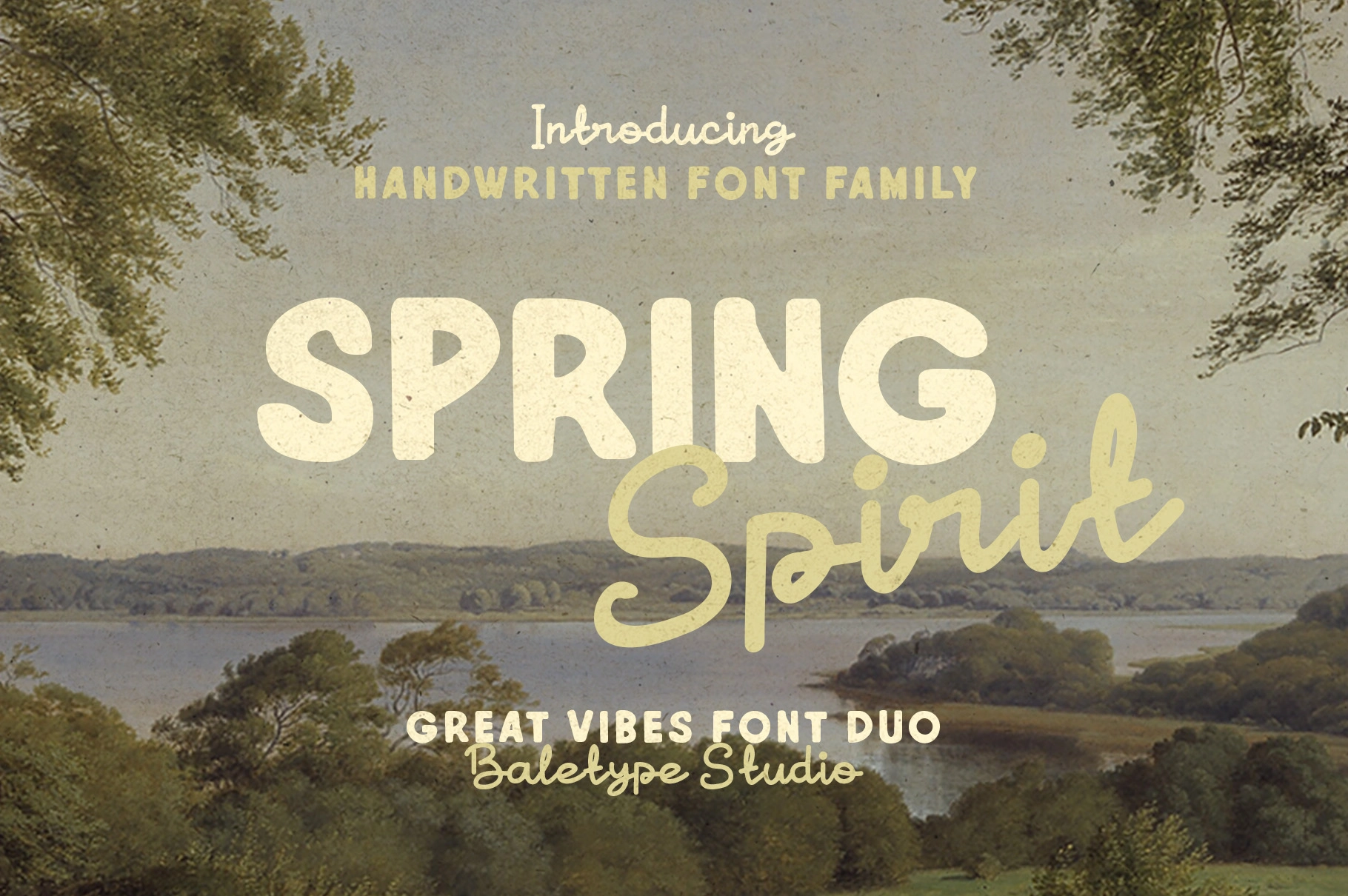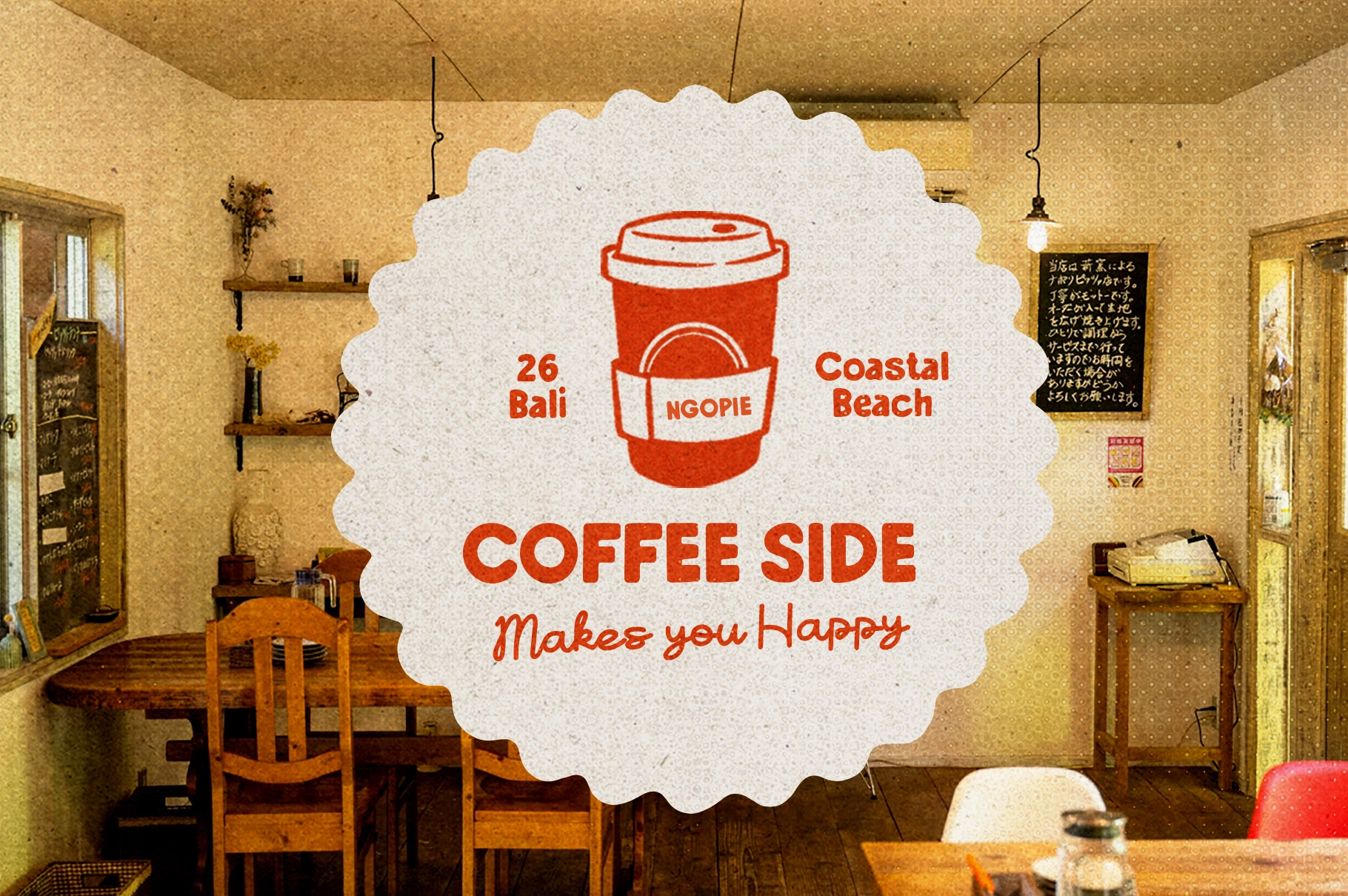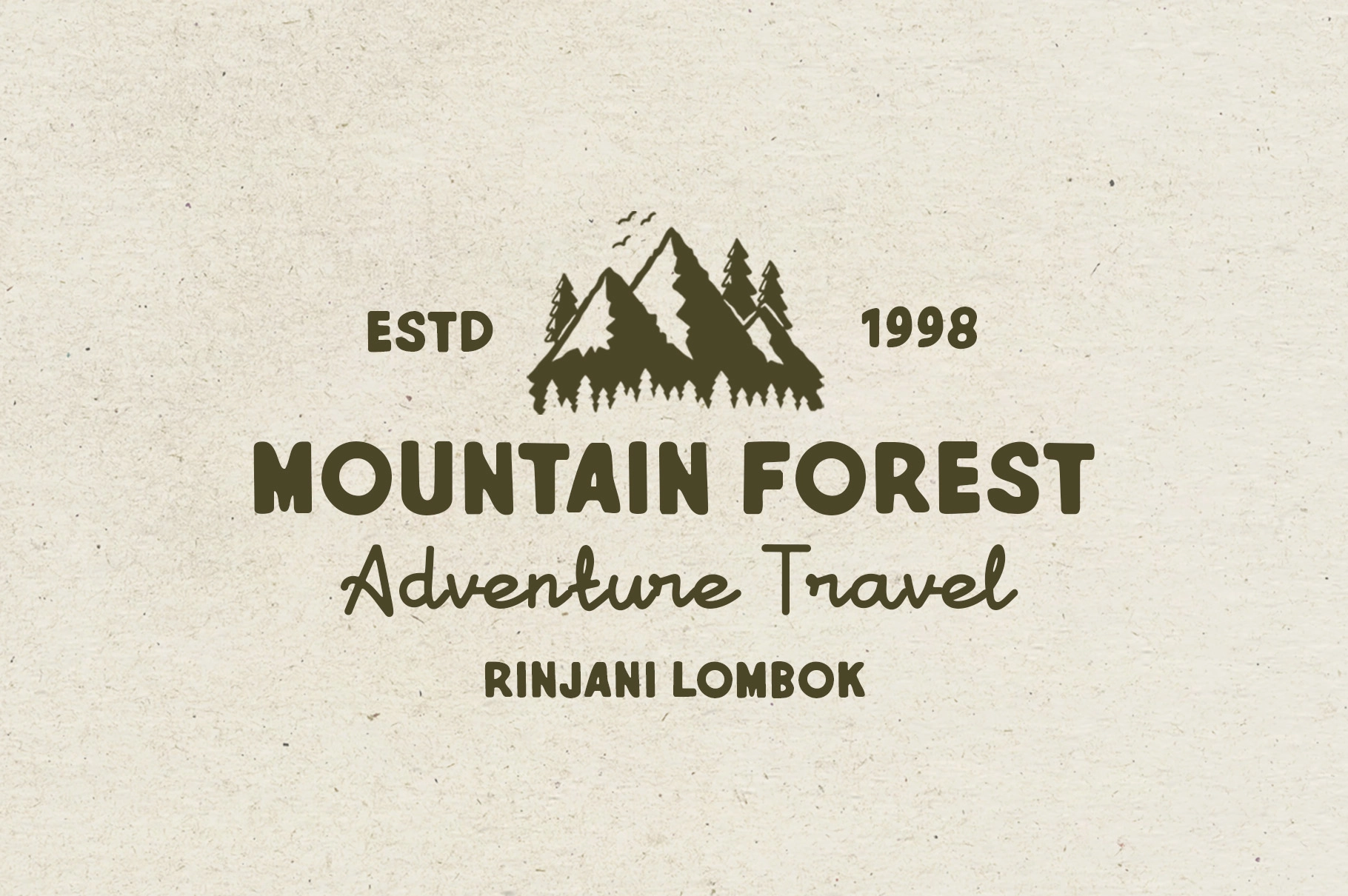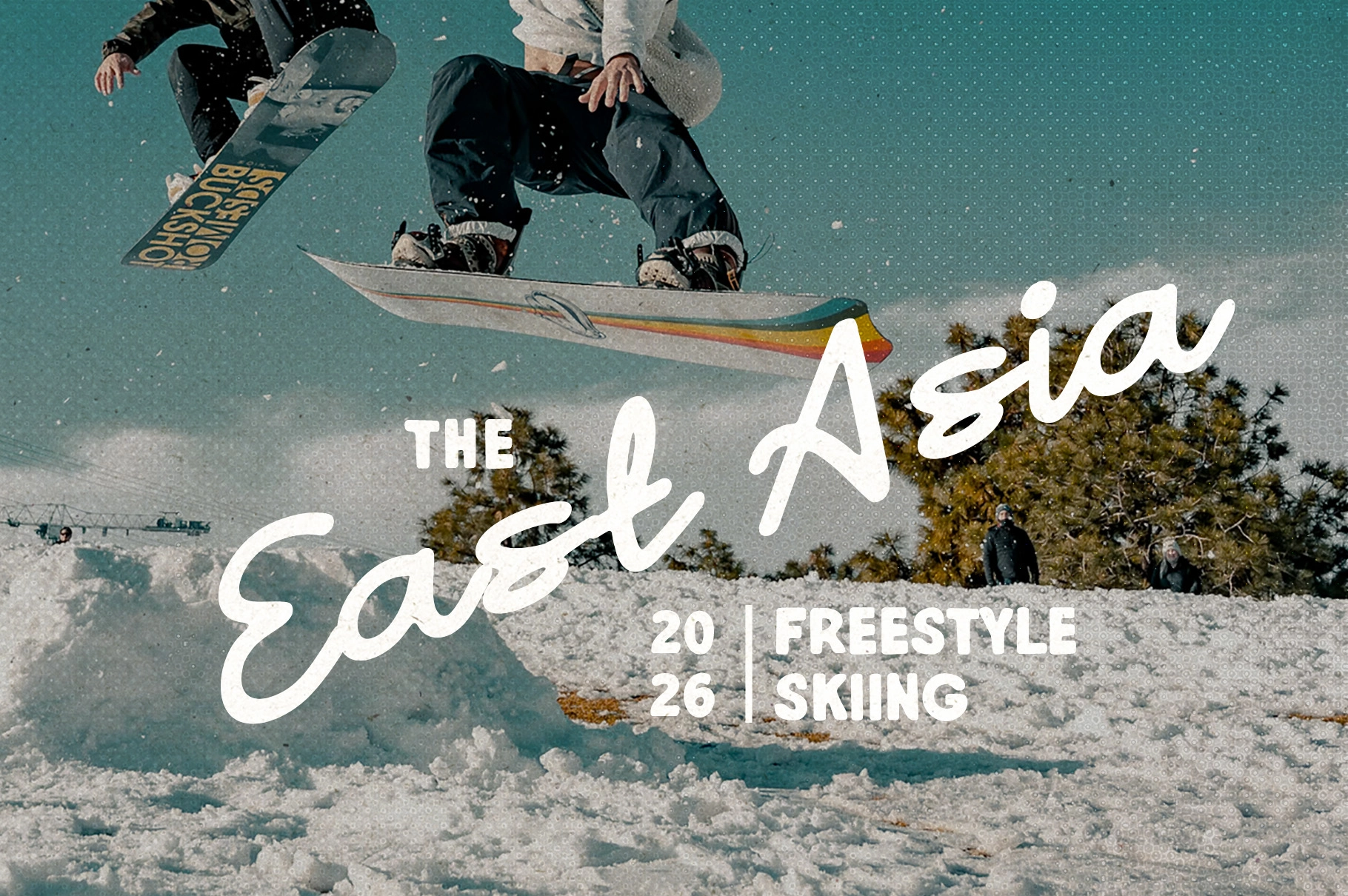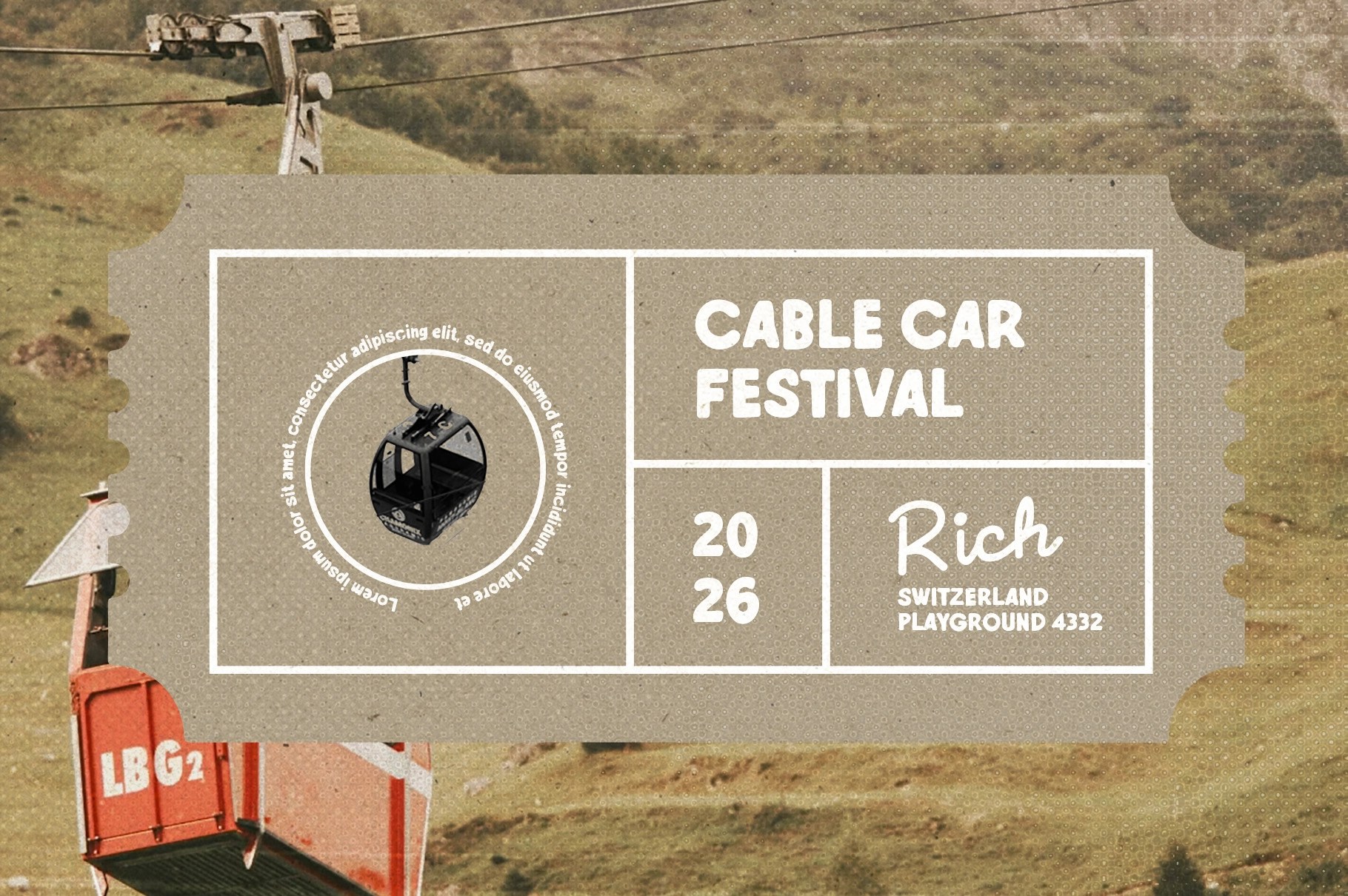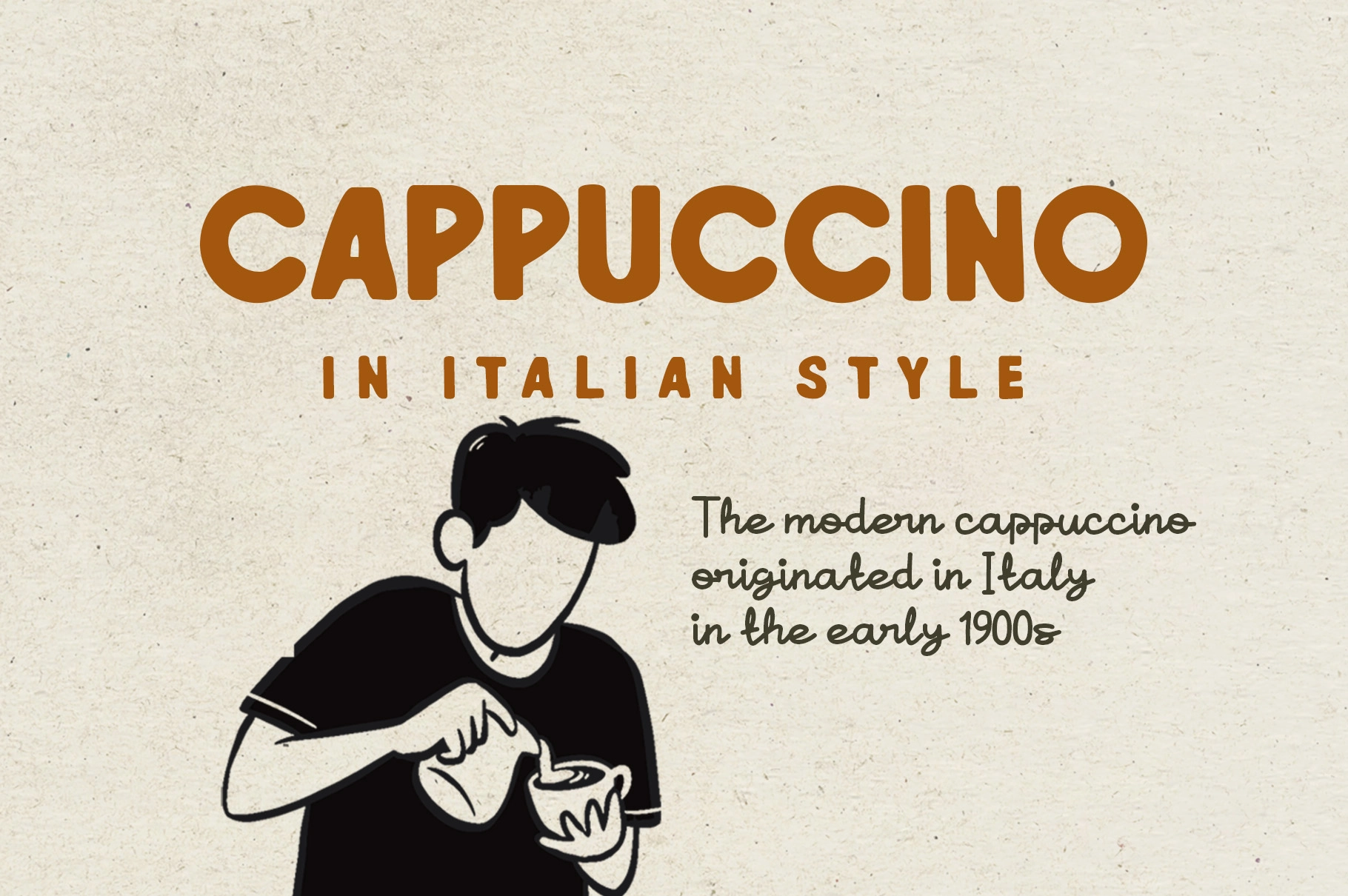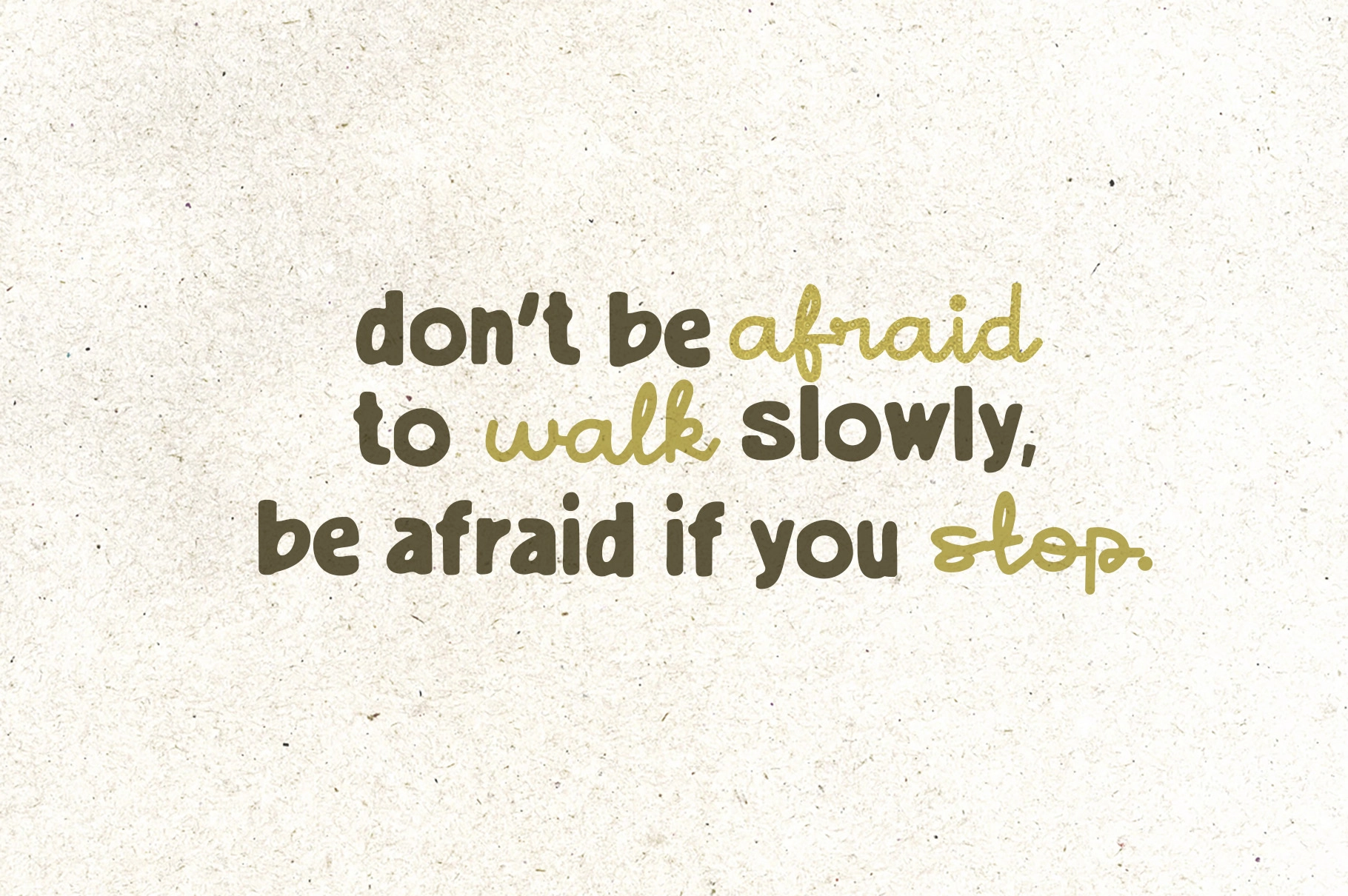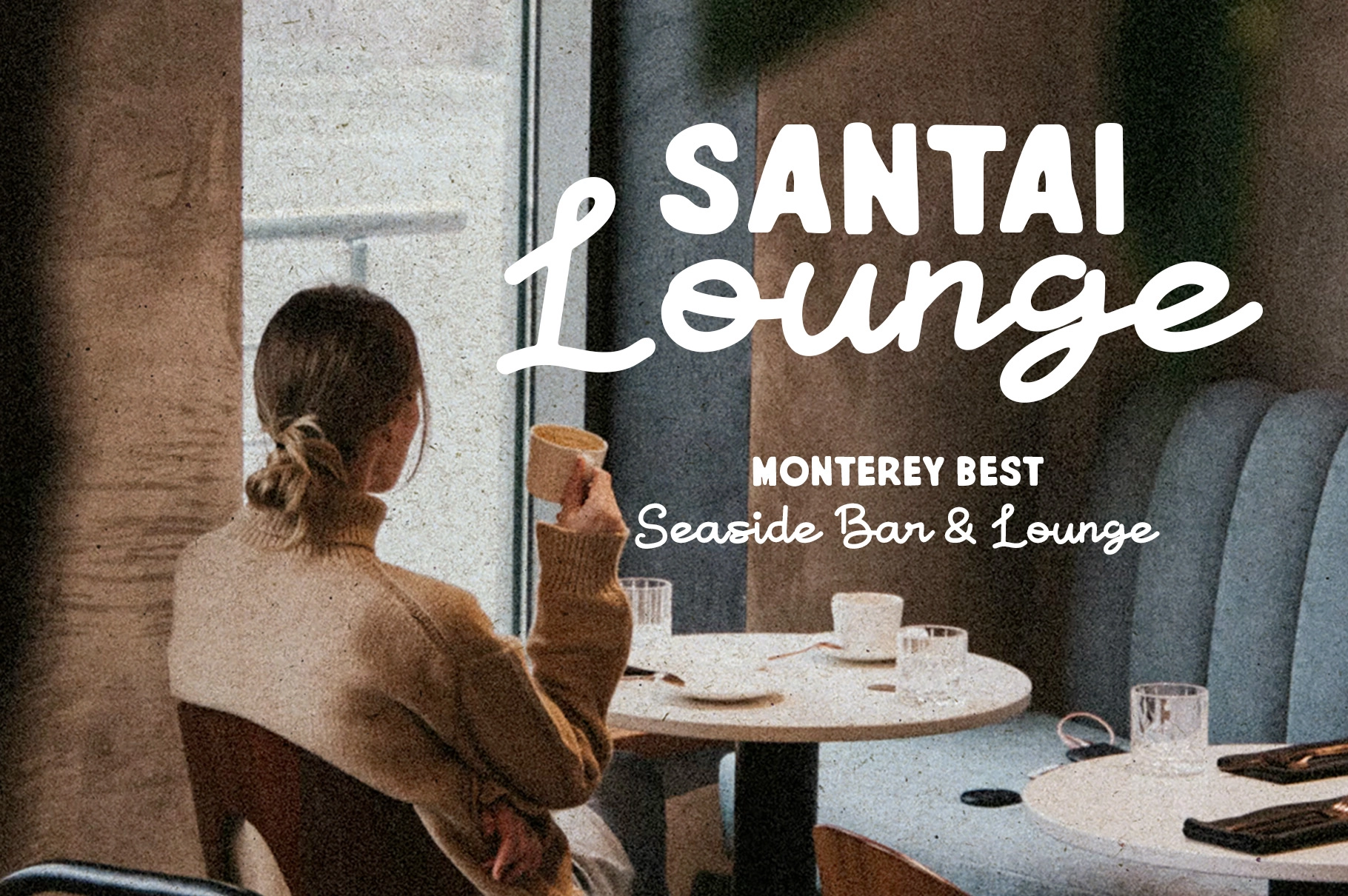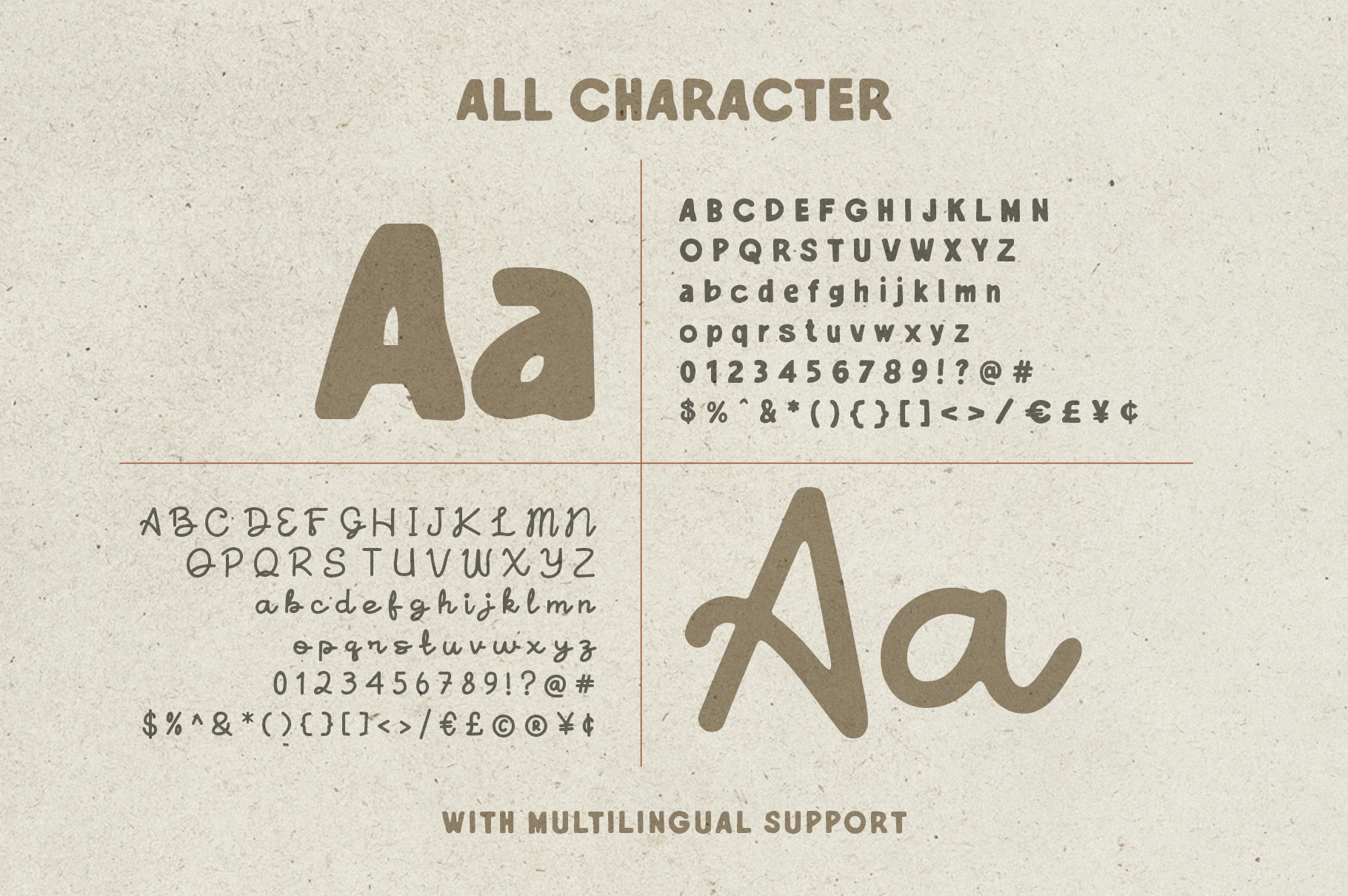
Spring Spirit - Handwritten Font Duo
Sans
This handwritten font duo pairs a chunky sans serif with a loose monoline script for casual typography that looks personal, outdoorsy, and easygoing. The contrast between bold rounded letters and flowing strokes makes it useful for layered logos, quotes, and nostalgic layouts with a soft adventure mood.
Use the duo for travel branding, outdoor badges, café packaging, quote posters, book covers, apparel graphics, journal designs, social media posts, event invitations, product labels, stickers, photography overlays, and more. The two styles work neatly together when a layout needs clear emphasis, natural rhythm, and a hand-drawn touch.